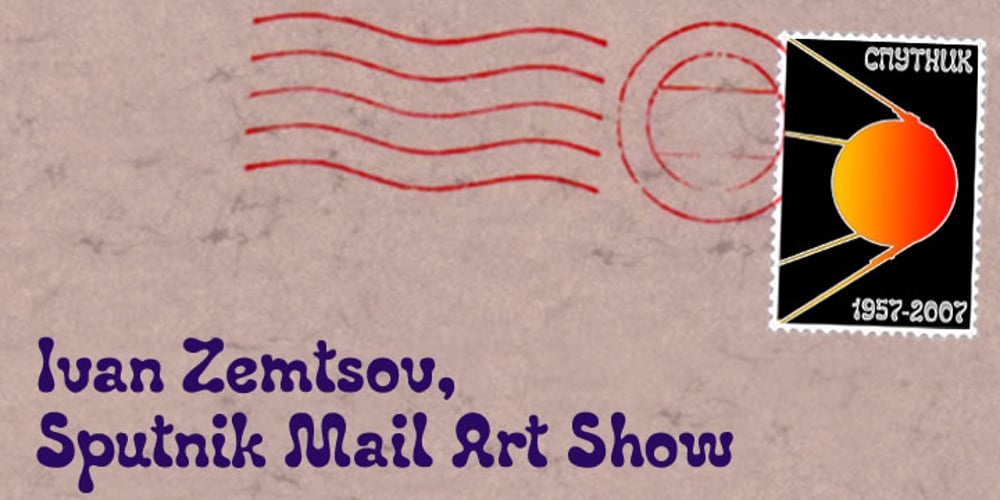
Ivan Zemtsov Font Family was designed by published by K-Type. Ivan Zemtsov contains 2 styles and family package options. The Ivan Zemtsov font is based on the lettering of Russian mailartist Ivan Zemtsov, and features both the Latin and Cyrillic alphabets.